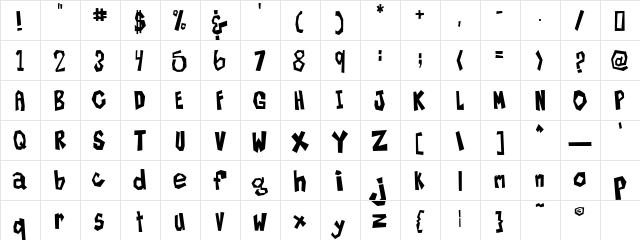
Sam is my Name Regular Font Preview
Sam is my Name Regular
Sam is my Name Regular Font Details
Design Context for Sam is my Name Typeface
Sam is my Name is a composed and adaptable typeface that performs quietly and consistently across a wide range of design contexts.
Pro Tip: Use Sam is my Name in both headline and body roles to test its range before committing to a single application.